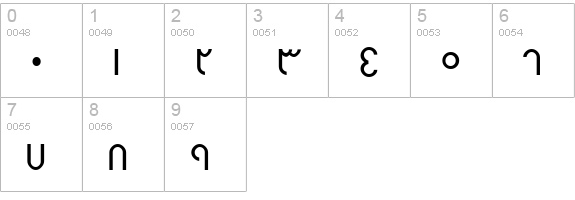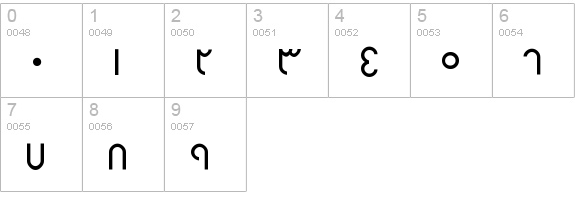
B Helal Font Details
B Helal font is a modern and stylish typeface that exudes sophistication and elegance. Its sleek and clean design makes it perfect for a wide range of projects, from branding to editorial design. The font features bold and distinctive characters that are sure to make a statement. What makes B Helal font even more appealing is that it is available for free download at FontsMarket.com. This means you can easily access this high-quality font without any cost, making it a great choice for designers looking to elevate their work without breaking the bank. Whether you're working on a logo, poster, website, or any other design project, B Helal font is sure to add a touch of class and flair. Download it for free today and see the difference it can make in your creative endeavors.